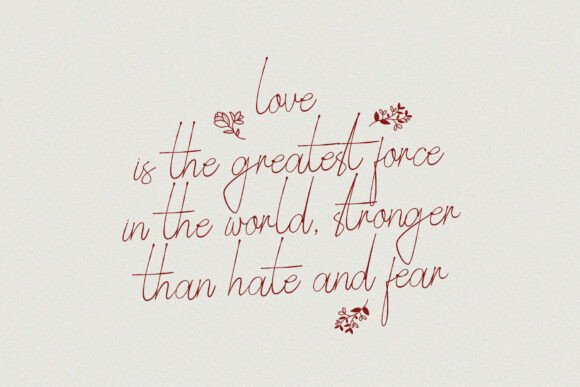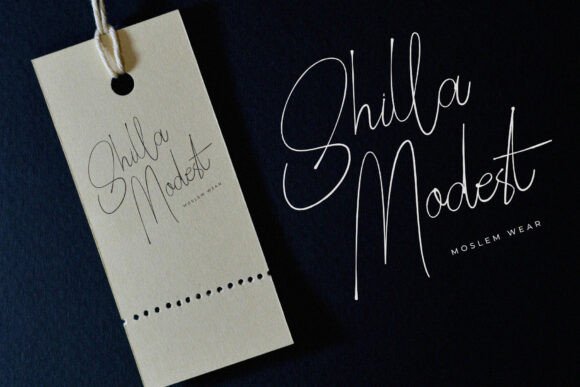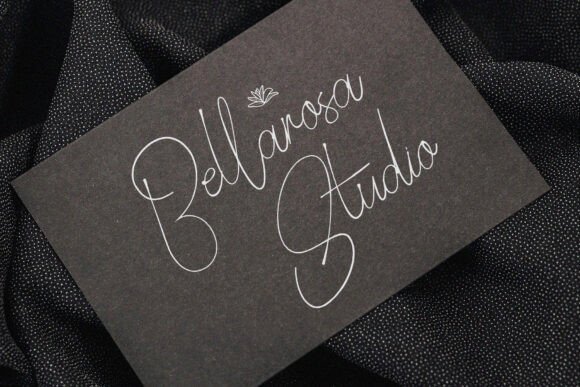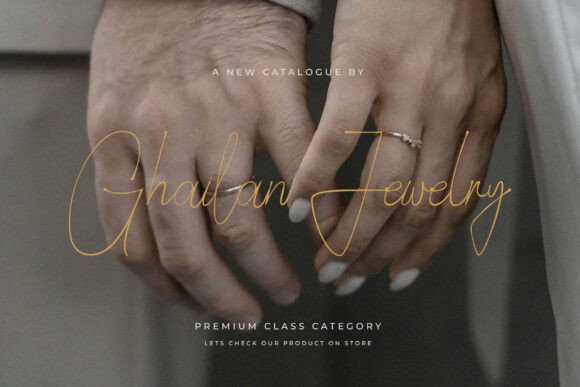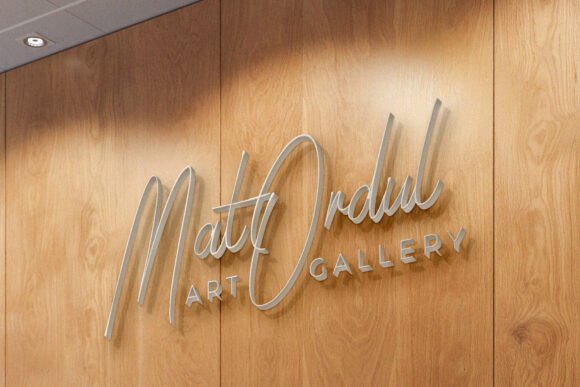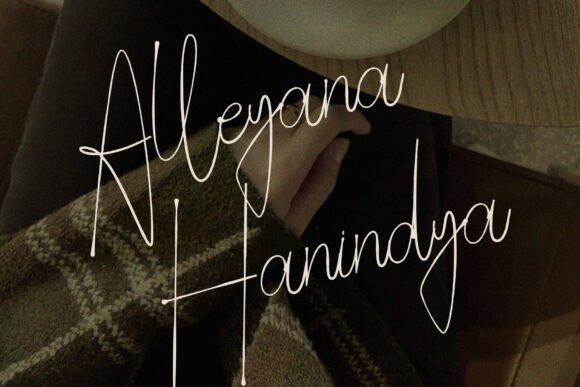
Introduction to Seillandry Font
As a designer, there’s nothing quite like the rush of creating something from scratch. You’re sipping on your morning coffee, the music is playing, and your imagination is running wild. You’re envisioning the perfect design for your next project, and the words are flowing effortlessly onto the page. But then, you hit a roadblock – the perfect font to bring your vision to life. That’s where the Seillandry Font comes in, a game-changing addition to any design arsenal.
This high-quality handwritten script is not only free to download, but it’s also a valuable resource for any designer looking to add a touch of elegance and sophistication to their work. With a full set of lowercase and uppercase letters, multilingual support, numerals, and punctuation, the Seillandry Font is the perfect tool for any creative project.
Whether you’re working on a branding project, a blog, or a social media campaign, the Seillandry Font is sure to elevate your design and make it stand out from the crowd. With its transparent background and high-quality design, this font is a must-have for any designer looking to take their work to the next level.
Key Features of Seillandry Font
- High-quality design for creative projects, suitable for various design resources
- Includes a transparent background for seamless integration into any design
- Comes in a single size, making it easy to use in various design applications
- Unique characteristics: elegant, modern, and sophisticated design elements
- Perfect for designers, artists, and anyone looking for a high-quality font for their creative project
Honest Review: Seillandry Font
As a designer, I’m always on the lookout for high-quality design resources to elevate my creative projects. Recently, I stumbled upon the Seillandry Font, and I’m excited to share my honest review with you.
- ✨ High-quality design: The Seillandry Font is expertly crafted with a transparent background, making it easy to use on any design surface.
- ✨ Versatility: This font is suitable for a variety of creative projects, from formal to informal.
- ⚠️ Limited font styles: While the Seillandry Font is high-quality, it’s limited to a single style, which may not be ideal for designers who need multiple font variations.
Overall, I’m impressed with the Seillandry Font. It’s a great addition to any designer’s toolkit, and I would definitely recommend it for creative projects that require a professional and high-quality font.
Tips for Getting the Most Out of Seillandry Font
For optimal results, use the Seillandry Font in conjunction with a high-quality design resource. Experiment with different font sizes and styles to achieve a unique look. Consider using a transparent background to add depth to your design.